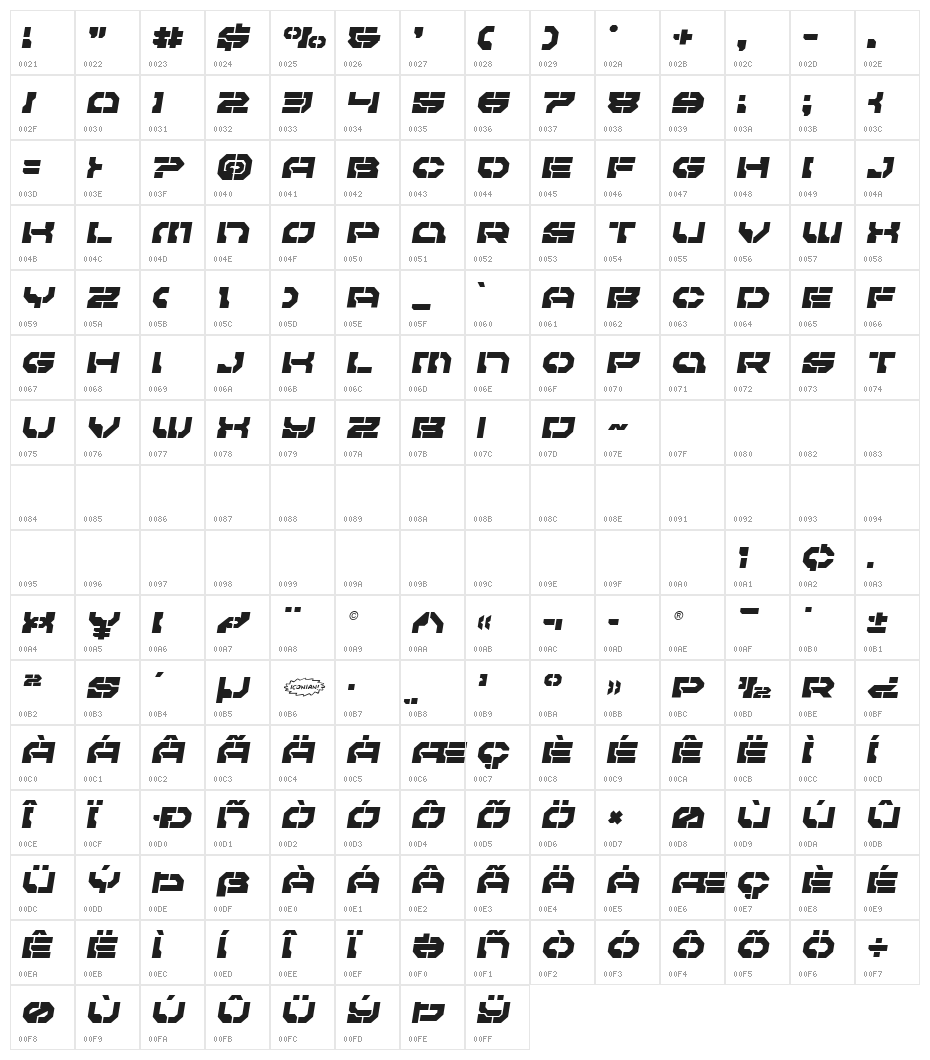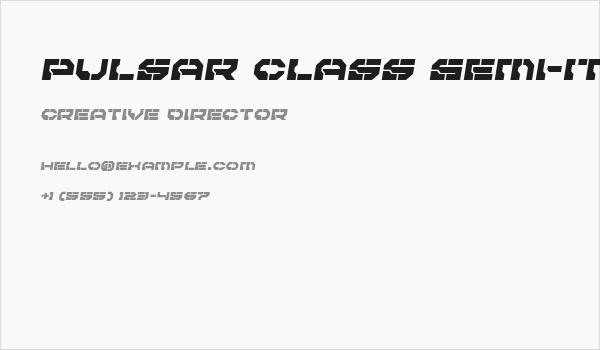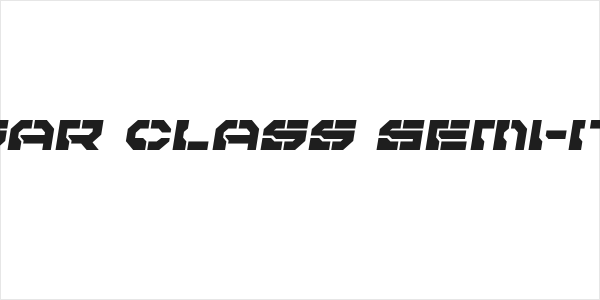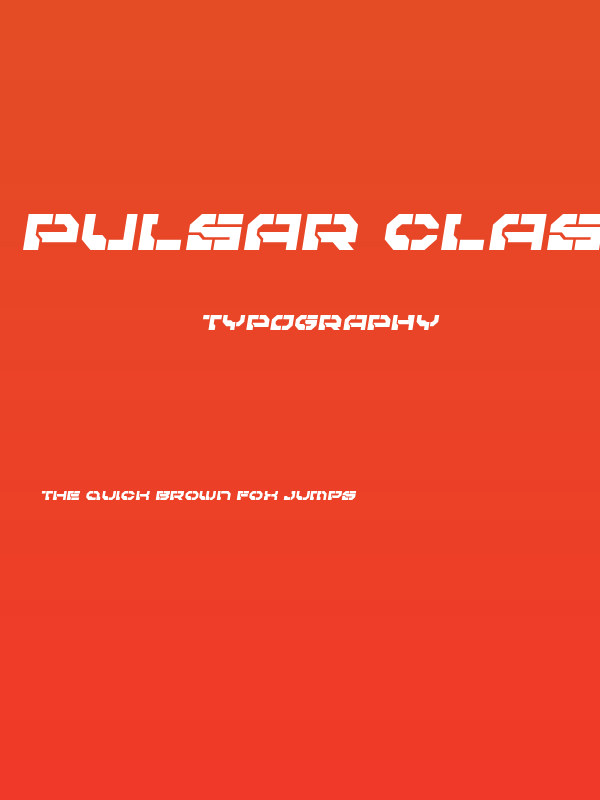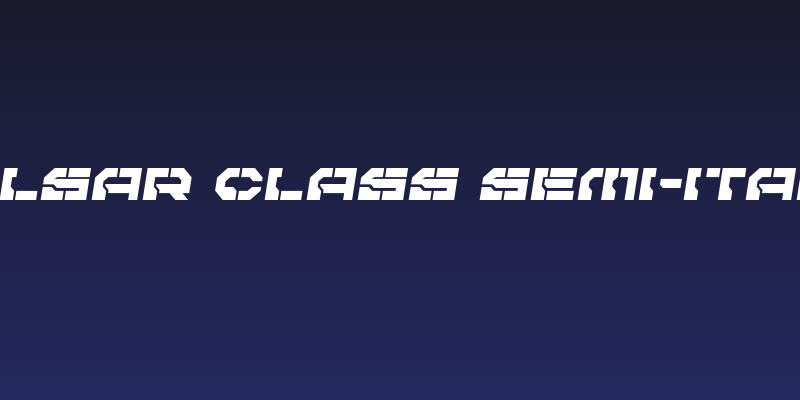
Pulsar Class Semi-Italic Font
Pulsar Class Semi-Italic Description
This font features a bold, futuristic design with angular, geometric shapes that create a dynamic and energetic appearance. The semi-italic slant adds a sense of motion and modernity, making it stand out in any design. The characters are constructed with sharp edges and a blocky style, giving it a strong and assertive presence. The font maintains a consistent weight throughout, ensuring readability while still offering a unique aesthetic. Its distinctive style is ideal for projects that require a modern and edgy look.
| Proposed Projects | Ideal for sci-fi themed projects, technology branding, video game titles, and modern posters. |